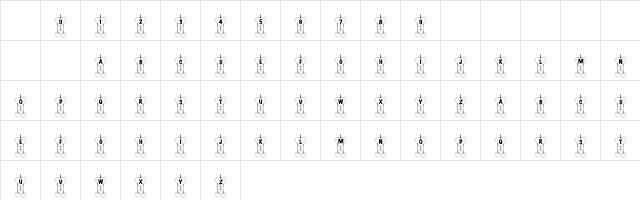
Complete 101! Heart Catcher Regular glyph index. Displaying only characters natively supported by 101! Heart Catcher Regular font.
101! Heart Catcher is a composed and adaptable typeface that performs quietly and consistently across a wide range of design contexts.